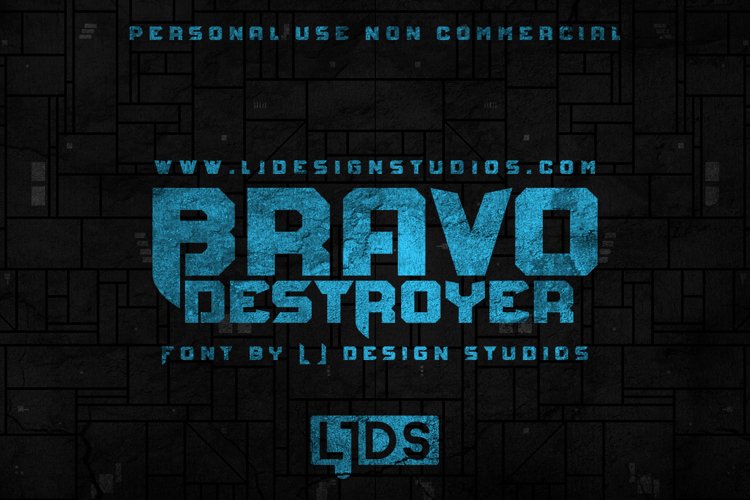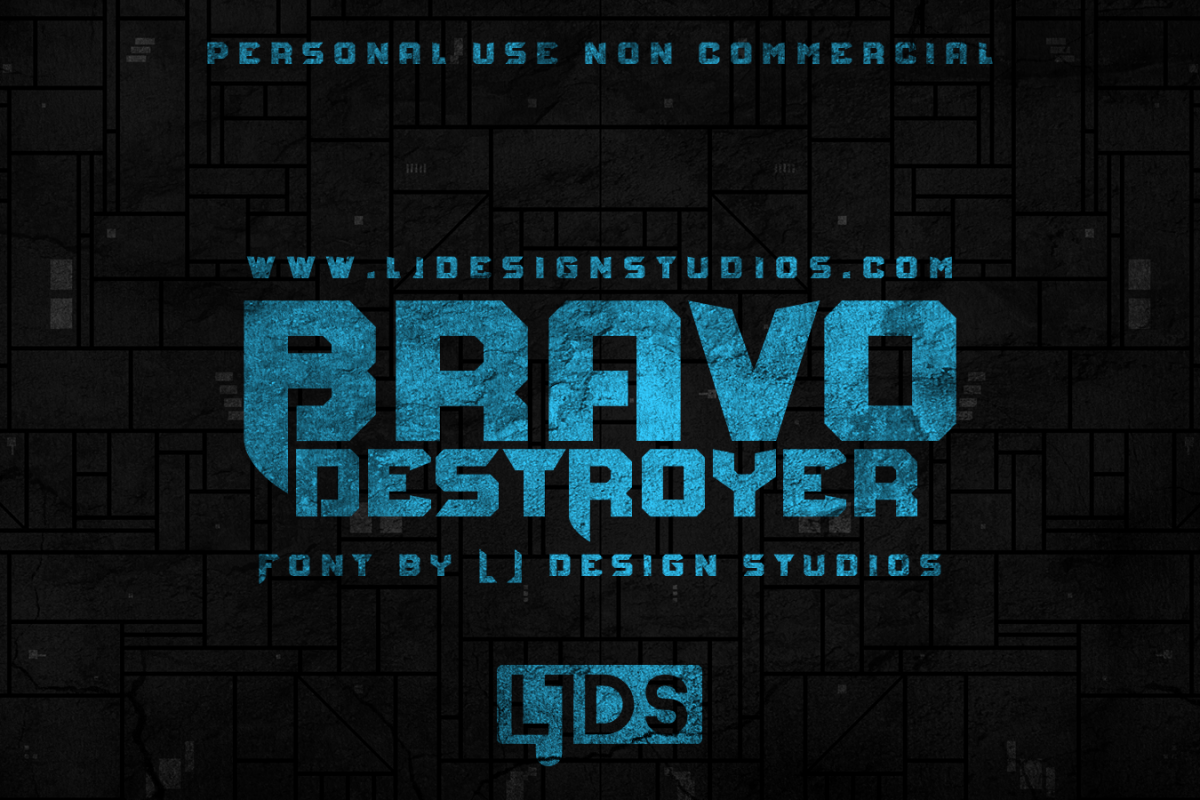
Bravo destroyer is a typographic font with a futuristic, geometric, and quite aggressive style.
Ideal for modern heavy metal bands and other sub genres.
-------------------------------------Ideal para Bandas musicales modernas del heavy metal entre otros sub generos del mismo.